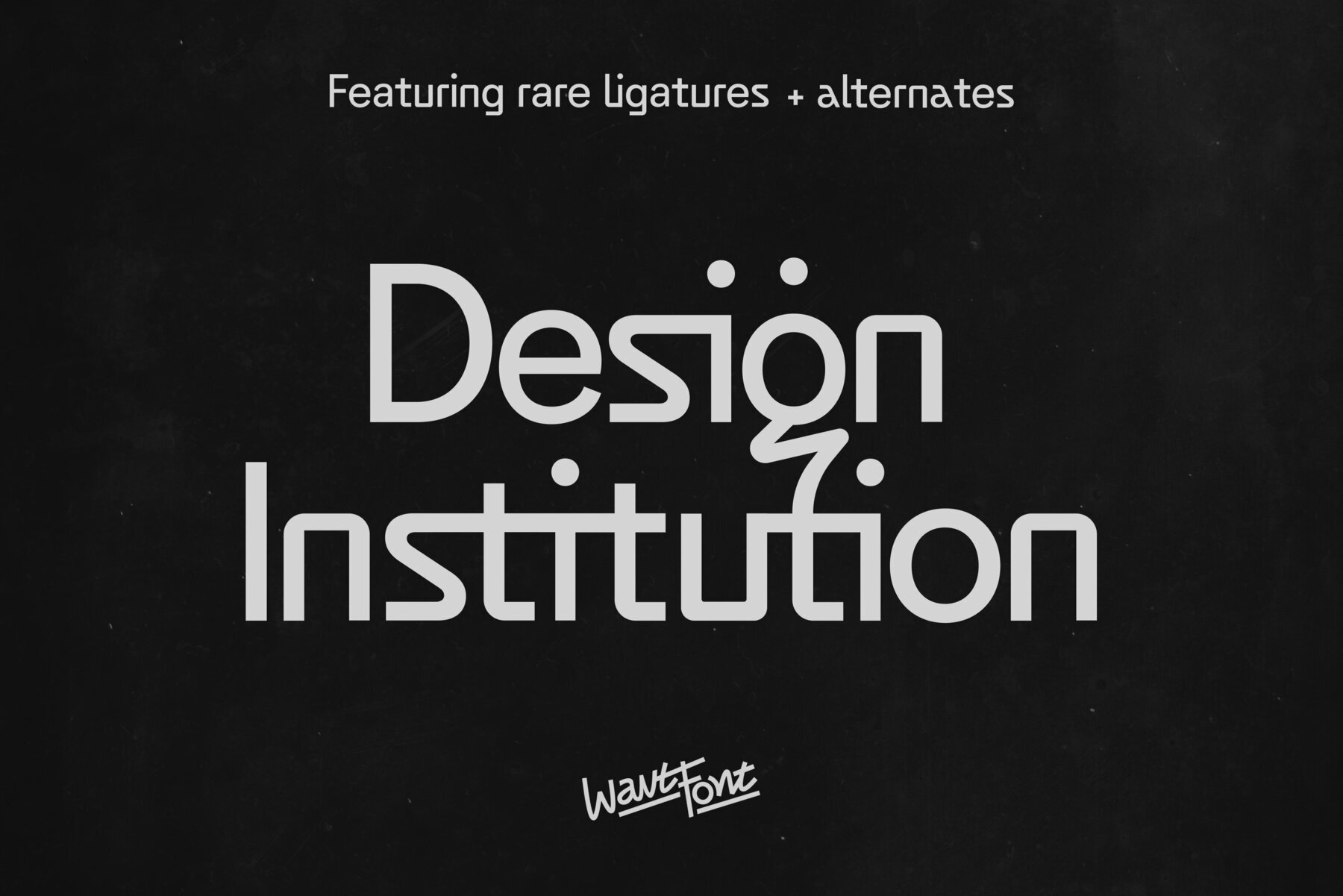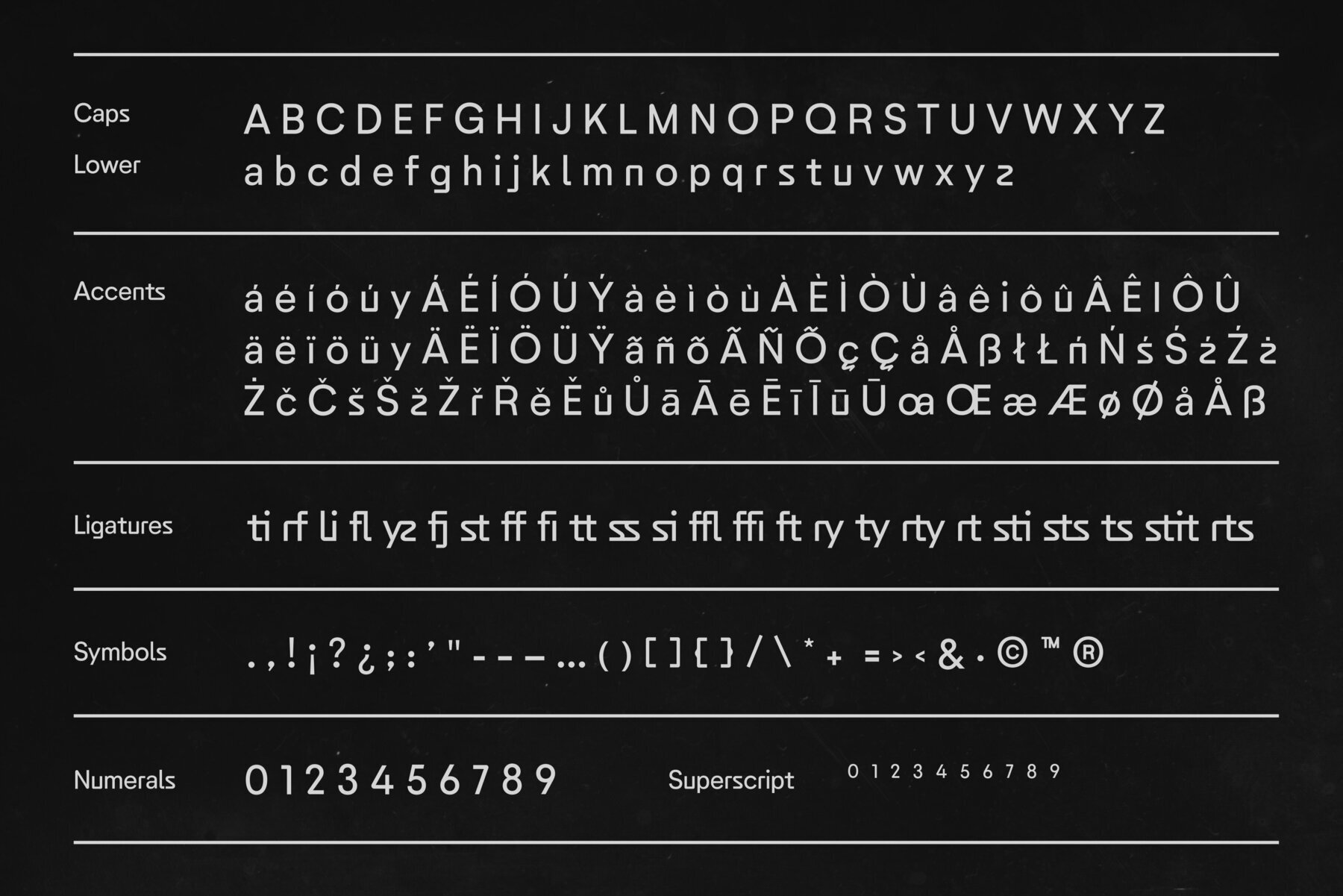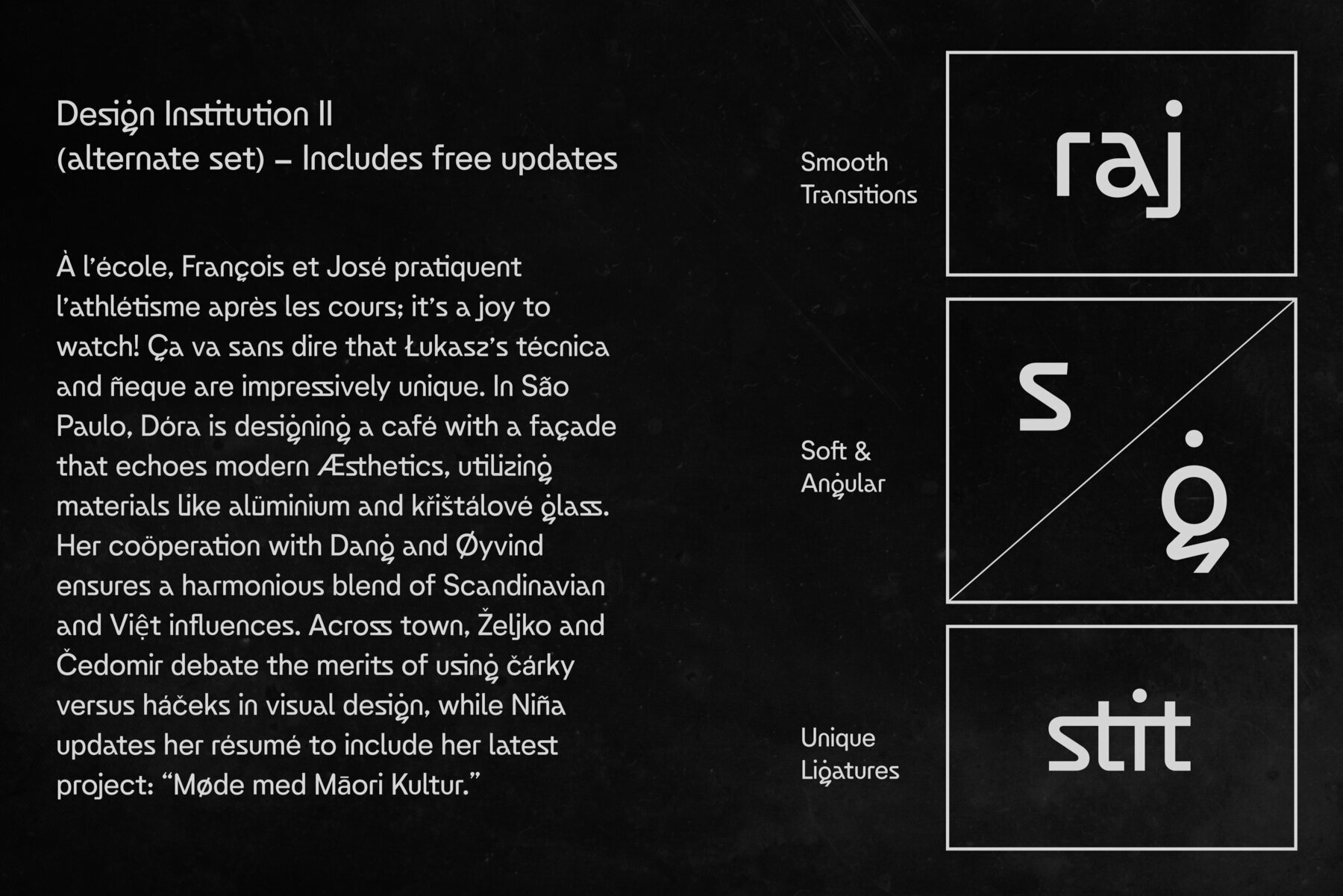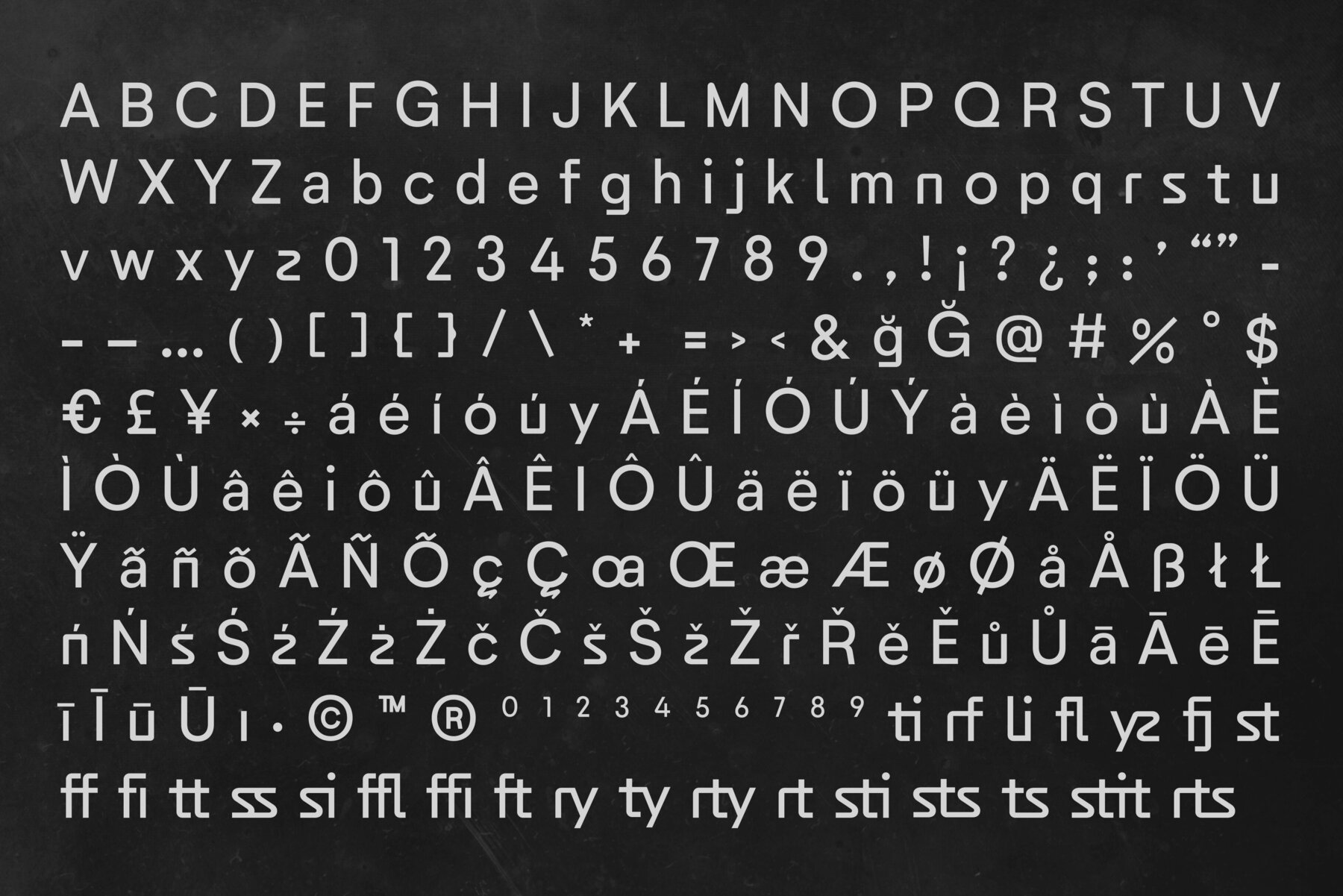
Design Institution Font
This bold and modern sans-serif font features clean lines and geometric shapes, making it highly legible and visually appealing. Its simplicity and professionalism make it perfect for a wide range of design projects, including branding, web design, advertising, and editorial work. Ideal for headlines and titles, this font's straightforward design ensures it stands out while remaining minimalistic, making it a valuable asset for both corporate and digital UX/UI design.